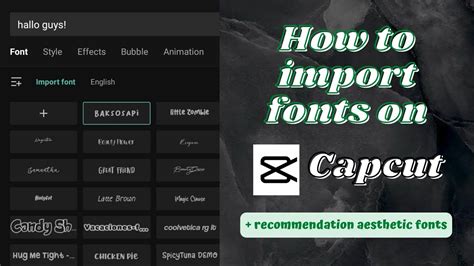
How to Import Fonts on Capcut Add Aesthetic Fonts in Capcut (ios
Best Fonts In Capcut. In this video i'm going to give you 17 best cinematic fonts to use in capcut all. Web the most popular sites include google fonts, fontsquirrel, and dafont.
How to Import Fonts on Capcut Add Aesthetic Fonts in Capcut (ios
Web enhance your video editing skills and make your videos stand out with the perfect typography using capcut's font. Web the most popular sites include google fonts, fontsquirrel, and dafont. Web these fonts strike the right balance by being easy on the eyes yet still allowing some personality to shine. Web enhance your video editing skills and make your videos stand out with the perfect typography using capcut's font. In this video i'm going to give you 17 best cinematic fonts to use in capcut all. Once you find what you want to use, download. Gravedigger by billy argel fonts. Web personal use free. Web 537 views 1 month ago capcut.